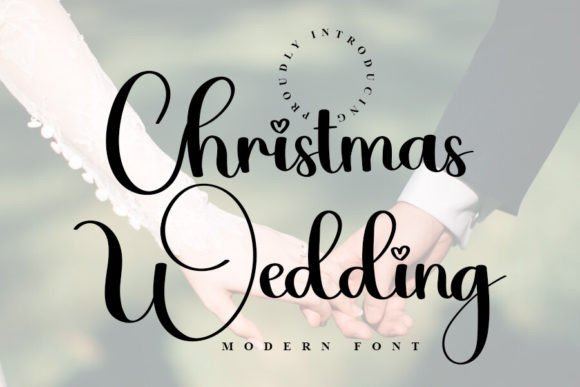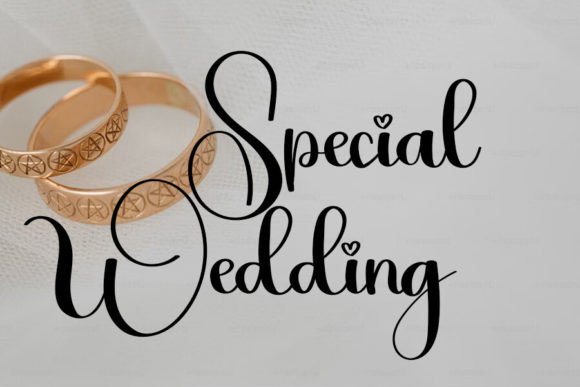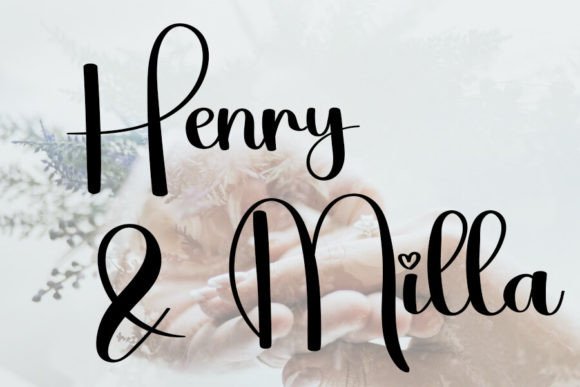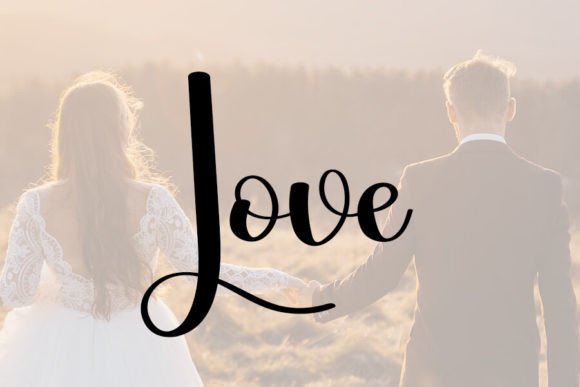
Christmas Wedding Font
About the Christmas Wedding Font
Experience the unique personality of Christmas Wedding Font, a font designed for impact. Christmas Wedding This font is a fresh and beautiful font, good for your design purposes such as Youtube banners, Cover Logo Mockups, Wedding Invitations, Id Cards, Flayer, Crafts. By using this font your business will progress and develop. Apart from that this font is simple and unique.
Its elegant and slightly playful style makes it ideal for wedding stationery, holiday-themed branding, and festive packaging designs. It also works well for short headlines and impactful titles on posters or social media graphics. However, its decorative nature makes it less suitable for body text or UI elements where readability is paramount. Avoid using it for long paragraphs or small sizes.
Pairing it with a clean sans-serif like Helvetica Neue for body copy maintains visual balance, while a delicate script font adds a touch of extra sophistication for luxurious applications. For a more modern feel, consider a geometric sans-serif as a contrasting counterpart.
The overall personality is best described as sophisticated yet cheerful; refined but approachable. This makes it suitable for brands that wish to project a celebratory and high-quality image.
Christmas Wedding Font Usage Examples
Christmas Wedding Font Example